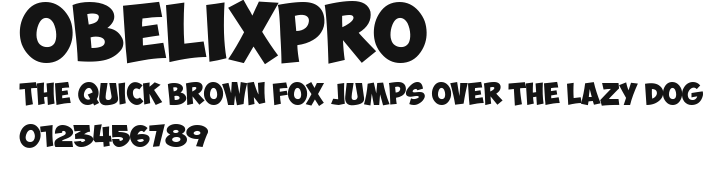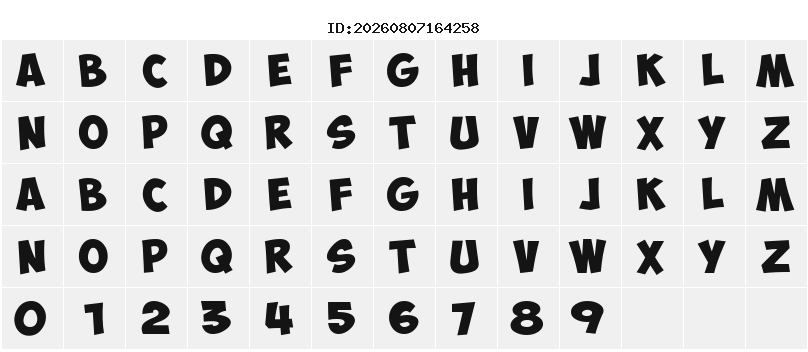
• Font Name: ObelixPro
• Font ID: ObelixPro:Version 1.00
• Full Font Name: Obelix Pro Bold Italic
• Version: Version 1.00, 2011
• PostScript Name: ObelixPro-BoldItalic
• Character Count: 182
About ObelixPro.ttf
ObelixPro.ttf is a modern, elegant sans-serif font designed for ultimate readability and visual harmony. Perfect for branding, headlines, web design, and print materials.